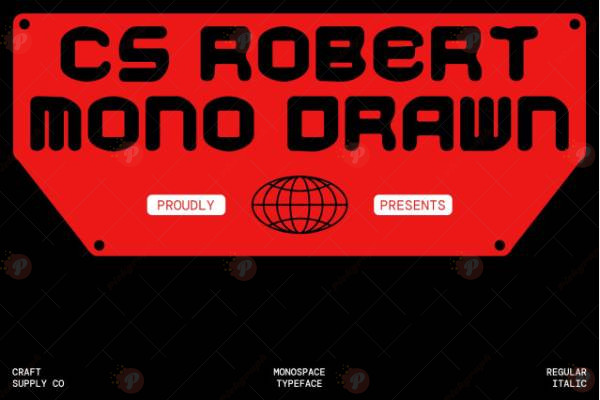
The CS Robert Mono Drawn Font Free is a hand-drawn monospaced typeface that blends a sketchy, organic style with the structure of a mono font. Its playful yet consistent design makes it perfect for logos, posters, packaging, invitations, tech-inspired artwork, coding-themed projects, and artistic branding.
Unlike traditional monospaced fonts, this version carries a handcrafted and creative feel, giving your designs both uniqueness and personality while maintaining balance and readability.
Typeface: Hand-Drawn / Monospaced Display Typeface
Style: Creative / Artistic / Playful / Handmade
Perfect for: Logos, Posters, Invitations, Coding-Themed Art, Packaging, Kids’ Projects, Social Media Graphics